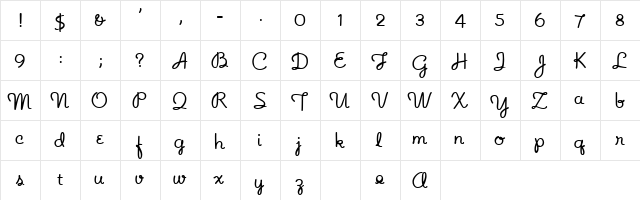
NoodleScript2 Regular
Design Context for NoodleScript2 Typeface
NoodleScript2 brings a calligraphic fluidity to the page — its connecting strokes and expressive curves give it an unmistakably human quality.
Font Pairing: Combine NoodleScript2 with a simple geometric sans for maximum contrast — the tension between flowing curves and clean structure is a classic typographic pairing.
Pro Tip: Pair NoodleScript2 with a clean sans-serif for supporting text. The contrast between fluid script and geometric structure creates an elegant typographic hierarchy.